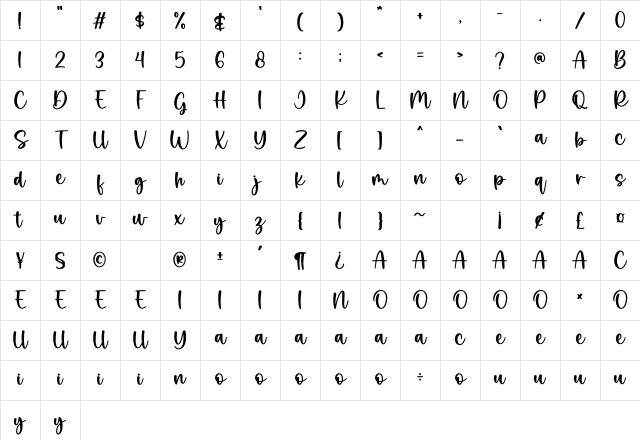
Cupcake Regular
Foundry: Graphix Line Studio
Designer: Aldi Raya Pradipta
Design Context for Cupcake
Cupcake is a composed and adaptable typeface that performs quietly and consistently across a wide range of design contexts.